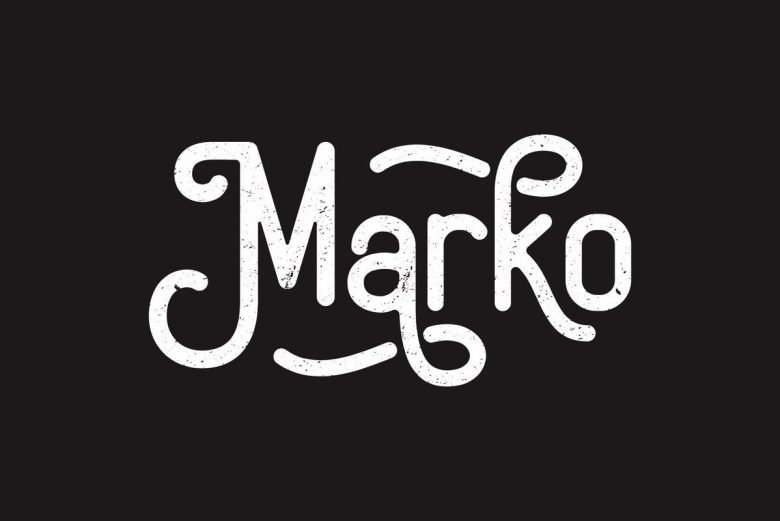
Marko Vintage Display Typeface
Marko Display Typeface is a classic and vintage display typeface. It is the best choice for creating eye catching logos, branding and quotes. Marko Font includes a complete set of uppercase and lowercase letters, as well as multi-language support, numbers, punctuation, ligatures, alternatives and extra swash.